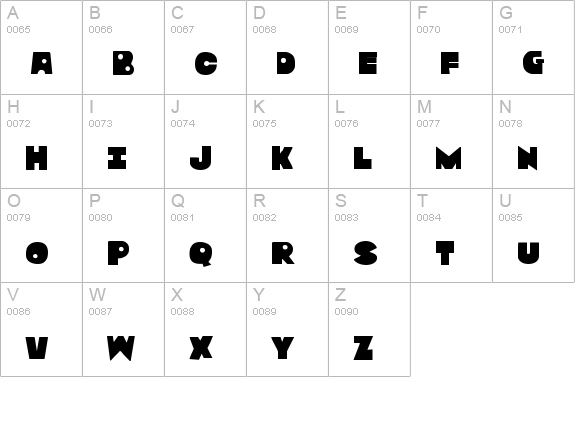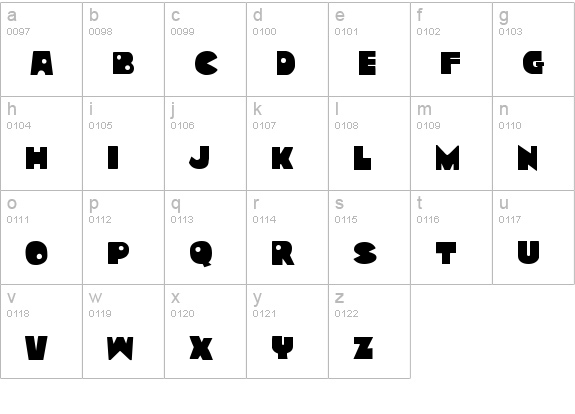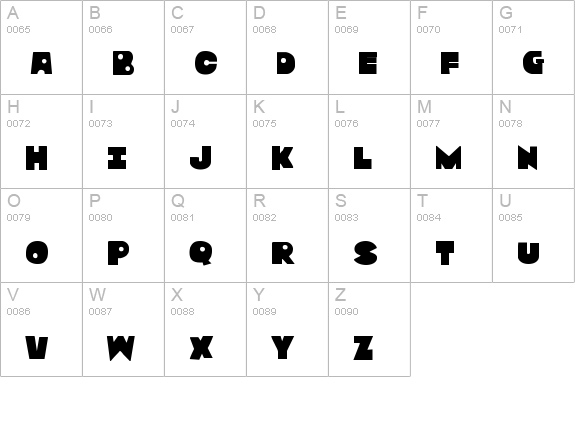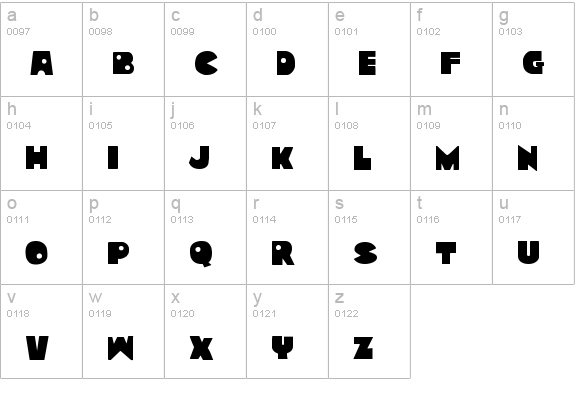
Zounderkite is a donationware font in the Fancy > Cartoon category, designed by Iconian. It has been downloaded 23 times and is available for Windows, Mac and Linux.
Introducing Zounderkite font - a playful and whimsical typeface that will bring a touch of joy to your design projects. With its unique letterforms and quirky charm, Zounderkite is the perfect choice for creating eye-catching headlines, greeting cards, posters, and more.